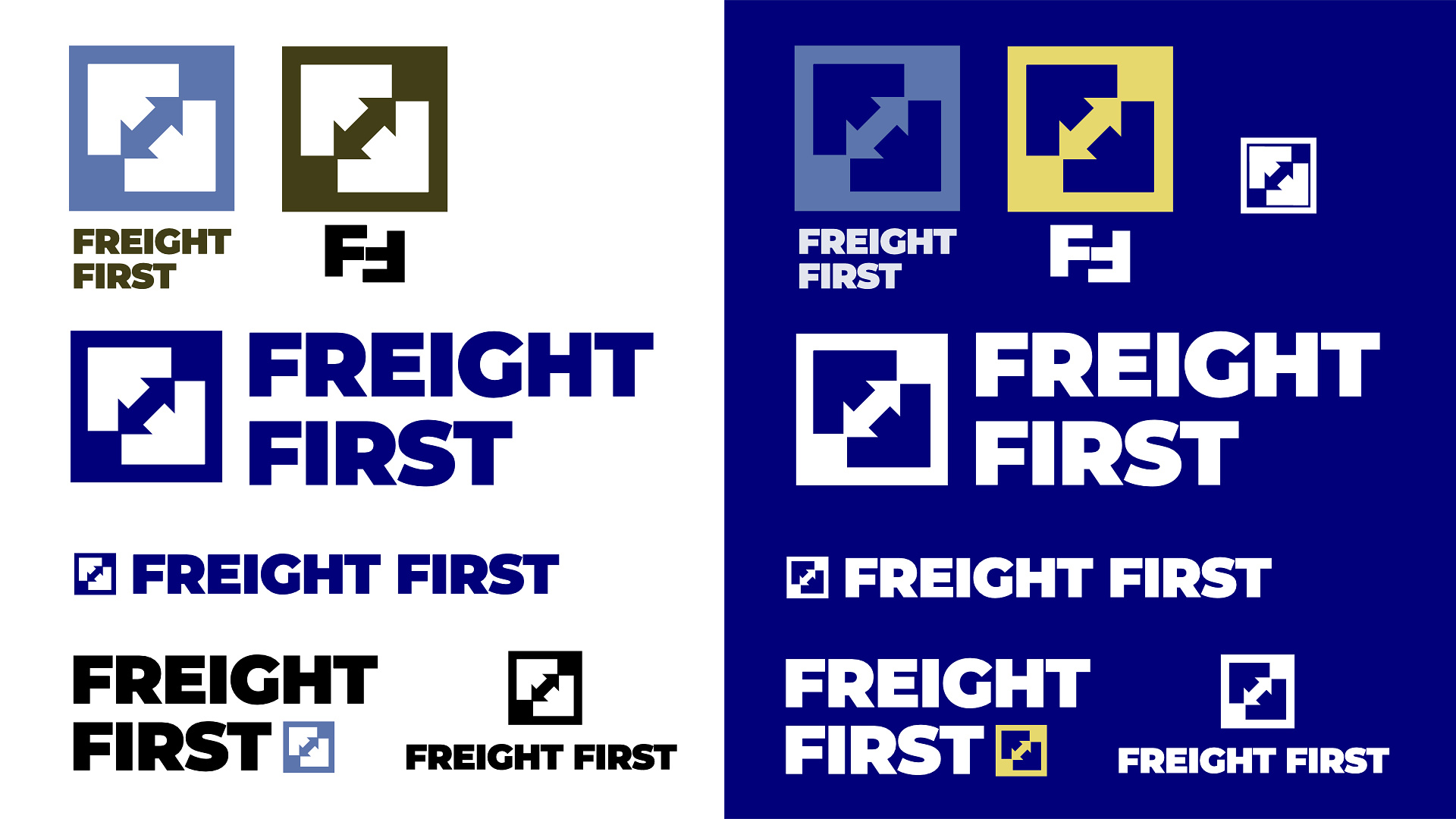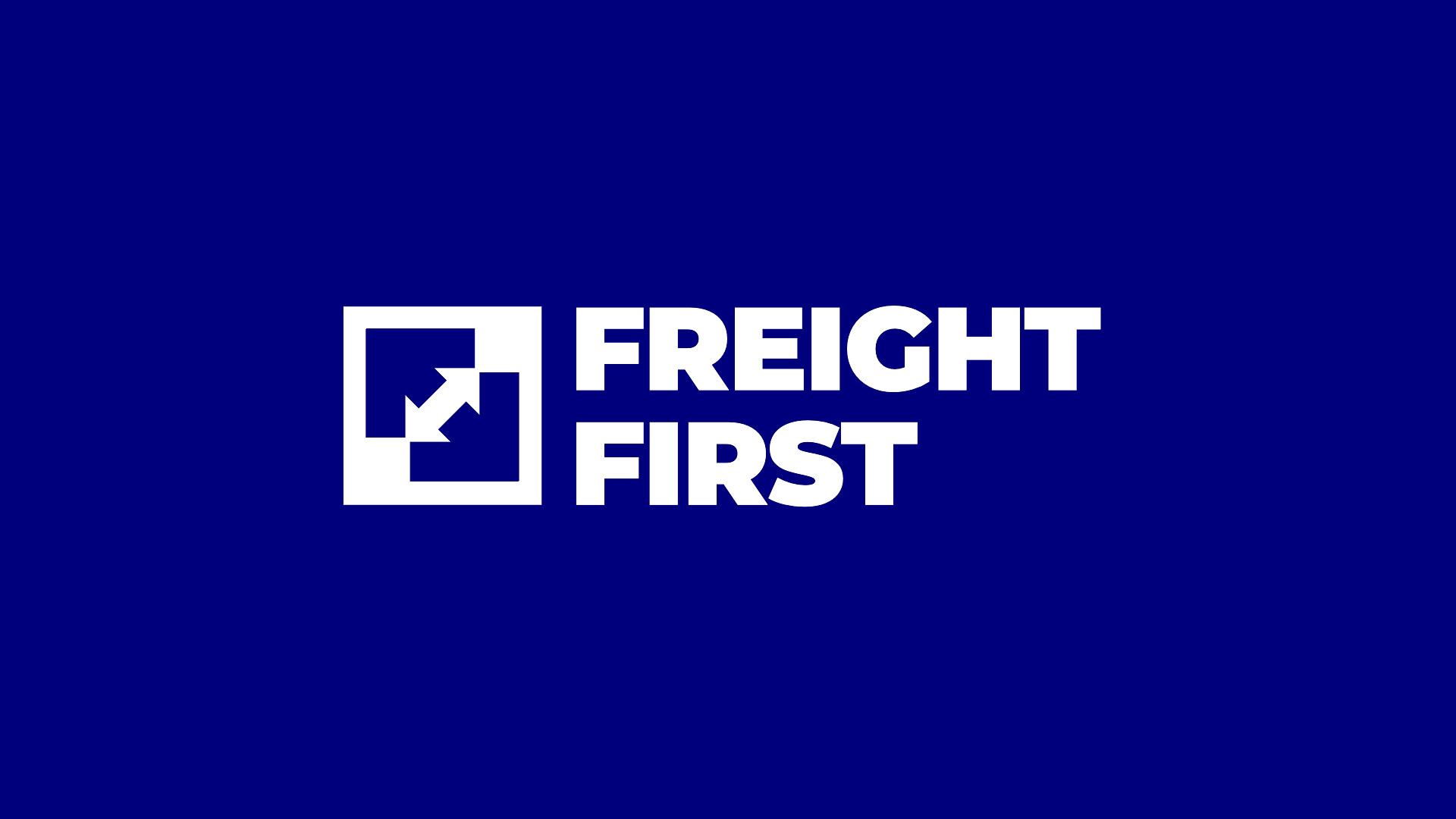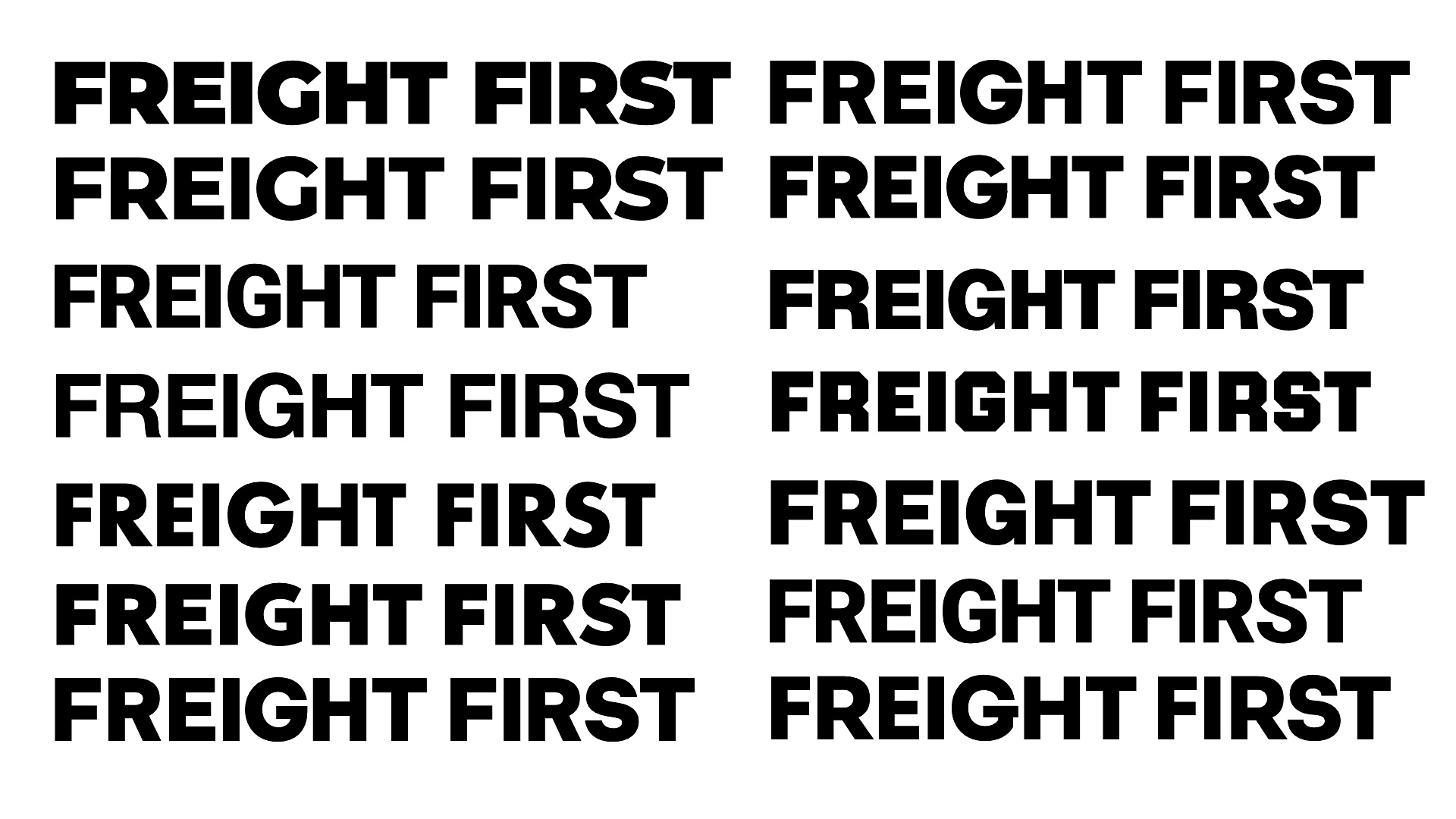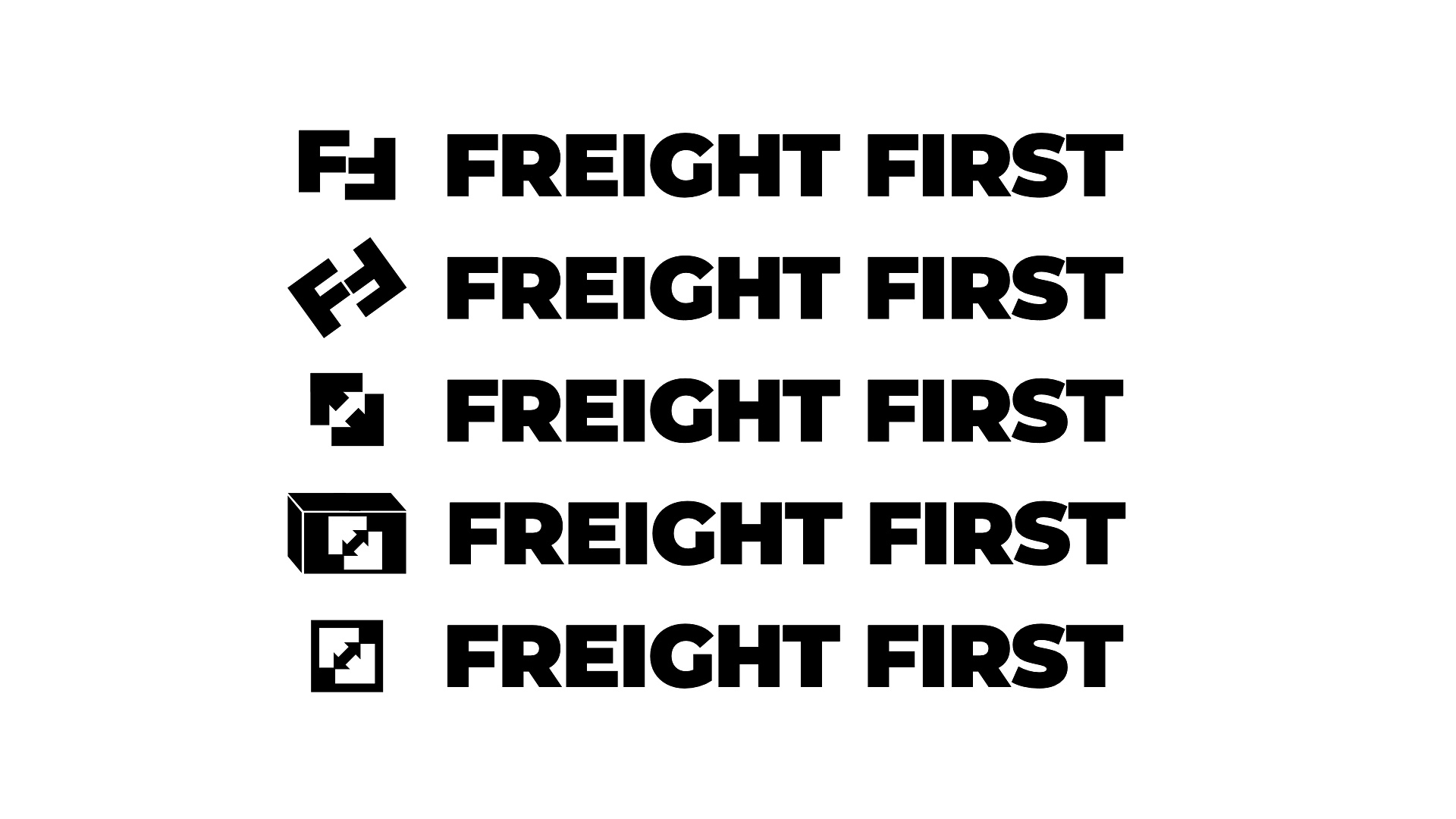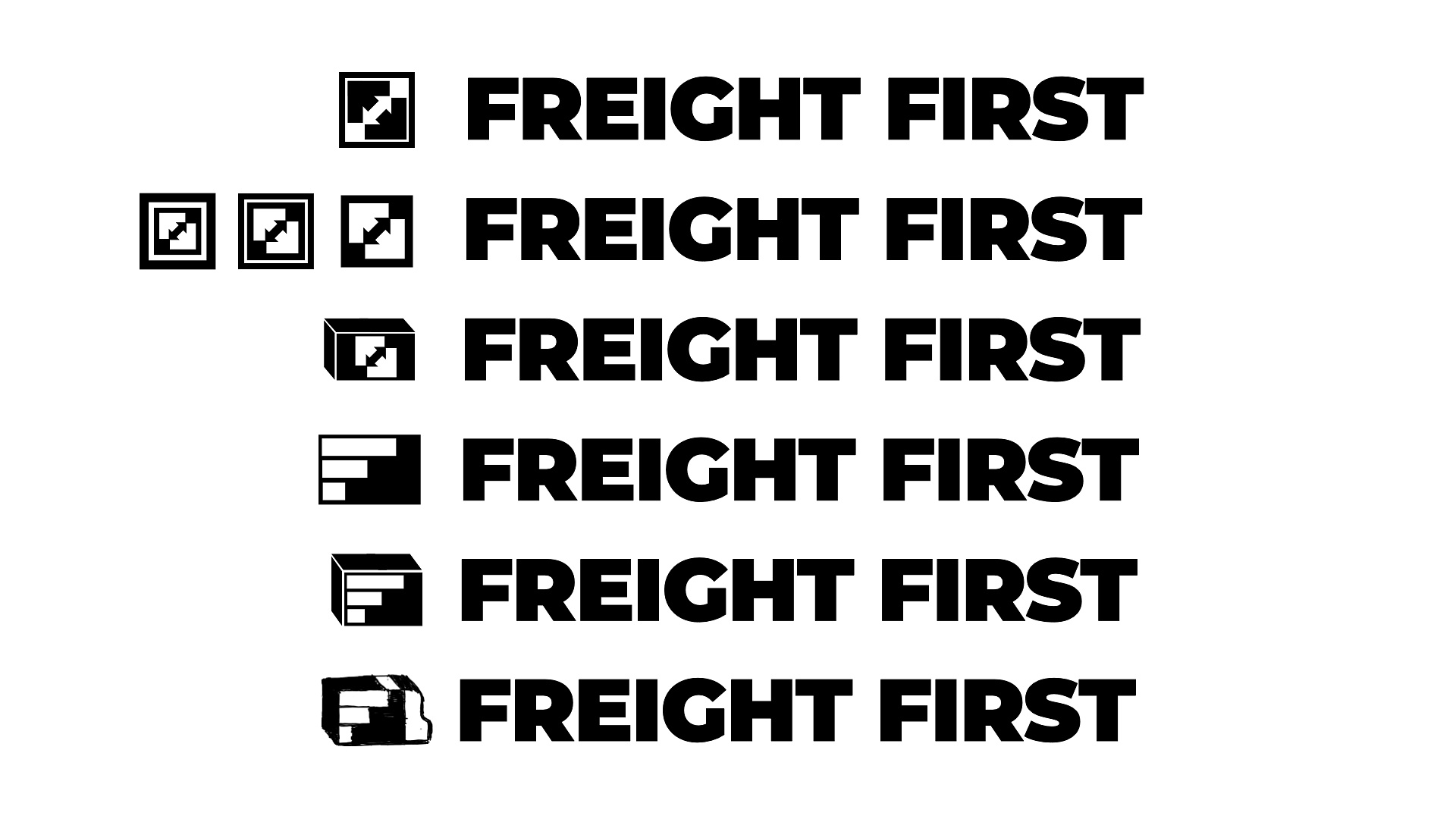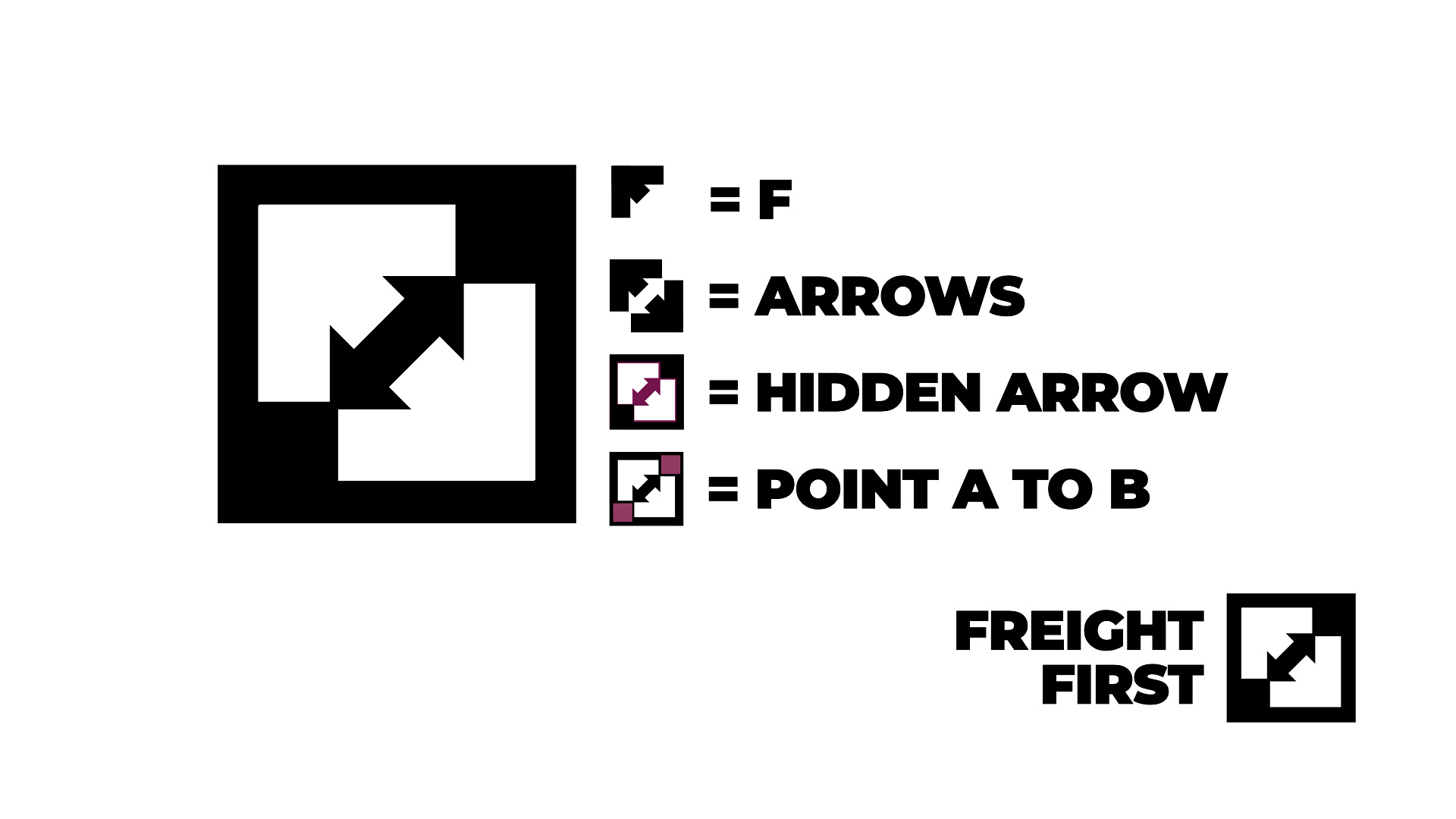
Logo Concept 04-Freight First Logo
The Logo Concepts
Final Design Concept for Freight First Logo
Logo Concept Series
I decided to expand my skills in icon mark and typography to broaden my design range, especially for logo design. While exploring this journey, I came across a daily logo challenge from Logo Core and decided to take it on. So, I will showcase the results of my logo practice based on the provided briefs.
Think of this post as a presentation of the initial concept to an imaginary client. It's my way of discussing my thought process and my design choices before exchanging feedback and revisions.
Please keep in mind that creating a polished logo design typically requires more than just a few days. Therefore, consider everything from this challenge as a rough draft that will need further feedback from clients for refinement to truly shine.
While these designs may not be fully refined, I believe they will offer us a general idea of the concept.
We have a really important project at Freight First that needs your immediate input. The entire company is pitching a new roadmap for investors tomorrow, and we need a logo design to solidify the presentation. It's last minute, but we know you're the best designer for the job.
Our company is an intermediary freight broker between a shipper who has goods to transport and a trucking company who has the capacity to move their product from point A to point B. There are plenty of brokerages out there already, but we specialize in finding optimal routes for sensitive cargo that requires ongoing monitoring and comprehensive insurance coverage.
The entire company is built on the foundations of trust and security with our clients, and the logo design has to reflect these core values. It needs to be a design that gives viewers a sense of trust that their delivery is handled by professional agents that understand how to transport cargo using safe and secure practices.
I attached a few references that describe our target visual aesthetic.
We're not looking for a logo that is eye-catching or even colorful. It just has to convey the company's industry experience and professional services.
Ps: I'm not opposed to the idea of replacing the 'First' in our company name with the number '1'.
Brief Interpretation
Popular Transportation and Logistics Brands
According to the brief, the company specializes in identifying optimal routes. Therefore, we need to visually represent the brand's core values, not literally but through thoughtful design elements. The brief also highlights trust and security as key priorities. Consequently, we require a design that conveys strength and reliability—nothing overly clever, just something that feels strong, solid and dependable.
I conducted some research on popular transportation brands to identify logo trends. Logos designed for transportation and logistics mostly use blue, as it represents trust, so I believe we should also adopt blue for this logo concept. Another common color is red, symbolizing energy and speed; however, since Freight First's core values prioritize trust, blue is the more suitable choice.
Another trend is the use of bold typefaces, which we should consider as well. Most brands employ either a wordmark or a combination mark, with the wordmark typically serving as the focal point.
Therefore, for this brand logo concept, we need it to be strong, bold, and blue.
Conceptualizing
My plan is to create a logotype that appears strong and conveys meaning of reliability. I believe a rectangular or square shape would be ideal, as it implies cargo and shipping. I jumped straight into creating an icon to convey meaning. I experimented with a monogram, aligning the initials "FF" from Freight First into a visually appealing design.
Initial Concepts for Freight First
I have five concepts to explore, each worthy of consideration in its own way.
1. The first concept appears strong without being overly playful. In this design, I incorporated the initials “FF” into the shape of a truck, creating an attractive and appealing visual.
2. The second concept combines the number one and the letter F to form a compelling visual. I considered shaping the number one into an airplane, but ultimately decided against it due to its playfulness against the brand core values.
3. In the third concept, I transformed the letter F into a wing. While it looked great, it felt inappropriate since we focus on brokerage rather than air transport. Although I still appreciate the idea, it doesn’t align with the brand's purpose.
4. The fourth concept is one I absolutely love. It features an F shaped like a wing and the number one resembling a truck with cargo inside. However, it emphasizes speed over trustworthiness and reliability, failing to convey the brand's core values. If the brand focused on fast delivery, this could be a strong mark. Additionally, it reads as "F1," commonly associated with car racing, which might be unsuitable for a brand that prioritizes reliability and trust. As much as I love this concept, I need to drop it.
The overall design—strong, bold, and simple—ensures versatility across various applications, from trucks to logistics documents, reinforcing the company's industry expertise and professional services.
I really like this logo design concept for its simplicity and effectiveness. If this concept is approved, I would definitely refine the color palette to make it more suitable for print.